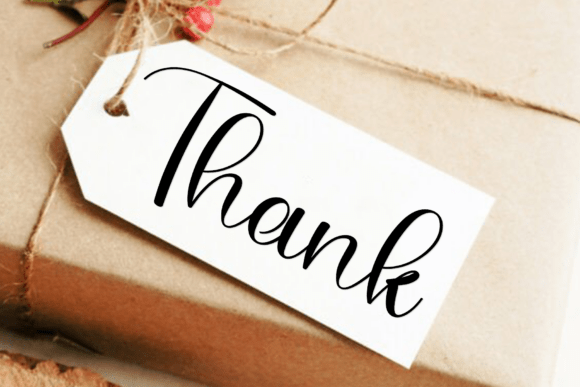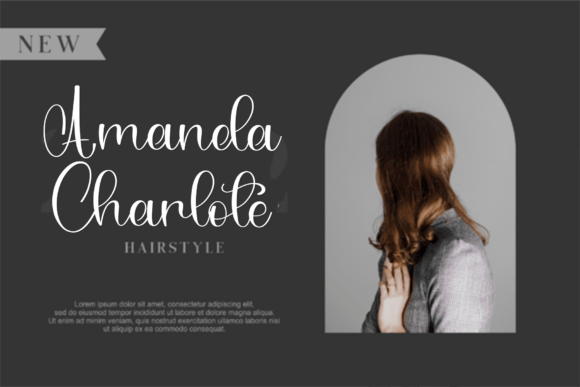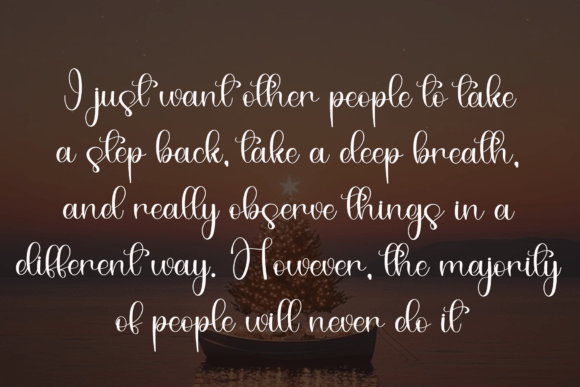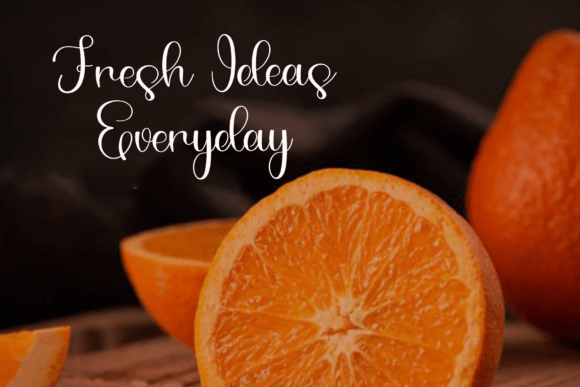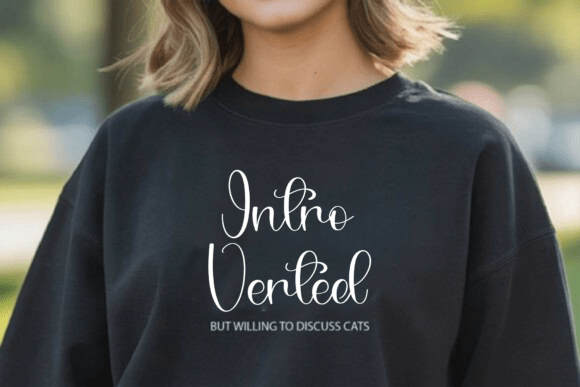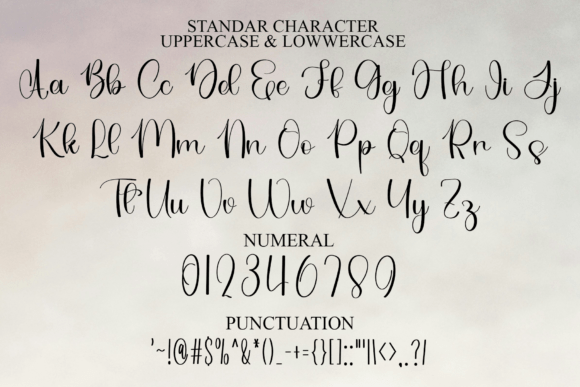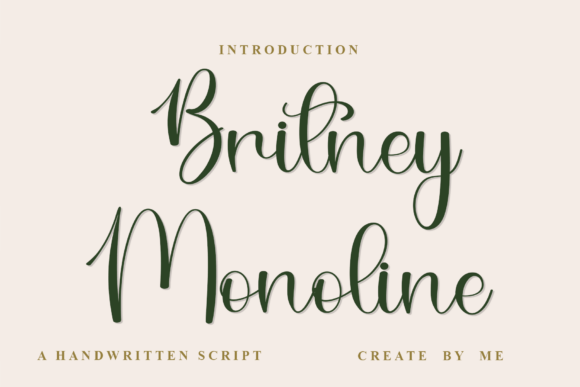
Introducing Britney Monoline Font: A Festive and Merry Typeface for the Holiday Season
Are you looking for a font that captures the essence of the holiday season? Do you want to add a touch of magic to your designs and make them stand out? Look no further than Britney Monoline Font, a festive and merry typeface that is perfect for greeting cards, gift tags, and holiday-themed projects.
What is Britney Monoline Font?
Britney Monoline Font is a decorative typeface that is designed to bring a cheerful and nostalgic ambiance to your words. With its whimsical flair and decorative elements, this font is sure to add a touch of enchantment to your designs. Whether you’re creating holiday-themed projects, such as Christmas cards, gift tags, or festive posters, Britney Monoline Font is the perfect choice.
Key Features of Britney Monoline Font
So, what makes Britney Monoline Font so special? Here are some of its key features:
- Festive and Merry: Britney Monoline Font is designed to capture the spirit of the holiday season. Its decorative elements and whimsical flair make it perfect for creating festive and merry designs.
- PUA Encoded: This font is PUA encoded, which means you can access all of the amazing glyphs and ligatures with ease. This makes it easy to use and customize your designs.
- Decorative Elements: Britney Monoline Font features decorative elements that add a touch of enchantment to your designs. From snowflakes to holly leaves, this font has everything you need to create festive and fun designs.
- Whimsical Flair: This font has a whimsical flair that makes it perfect for creating holiday-themed projects. Its playful and fun design is sure to bring a smile to anyone’s face.
Uses for Britney Monoline Font
So, what can you use Britney Monoline Font for? The possibilities are endless! Here are some ideas to get you started:
- Greeting Cards: Create festive and fun greeting cards for the holiday season. From Christmas cards to Hanukkah cards, Britney Monoline Font is the perfect choice.
- Gift Tags: Add a touch of magic to your gift tags with Britney Monoline Font. This font is perfect for creating custom gift tags that are sure to impress.
- Holiday-Themed Projects: From festive posters to holiday-themed social media graphics, Britney Monoline Font is perfect for creating a wide range of holiday-themed projects.
Why Choose Britney Monoline Font?
So, why should you choose Britney Monoline Font for your holiday-themed projects? Here are just a few reasons:
- Unique and Festive: Britney Monoline Font is a unique and festive typeface that is sure to stand out. Its decorative elements and whimsical flair make it perfect for creating holiday-themed projects.
- Easy to Use: This font is PUA encoded, which makes it easy to use and customize. You can access all of the amazing glyphs and ligatures with ease.
- High-Quality Design: Britney Monoline Font is designed to high standards, ensuring that your designs look professional and polished.